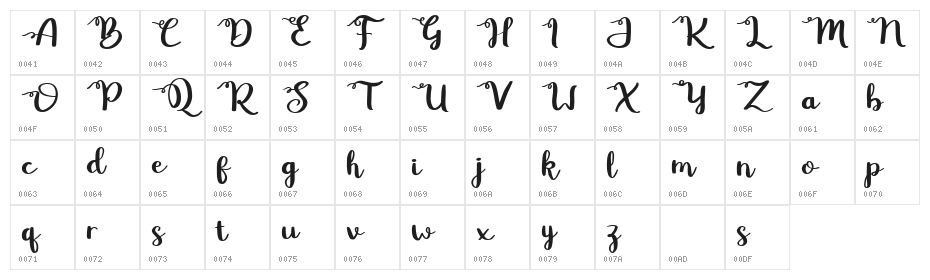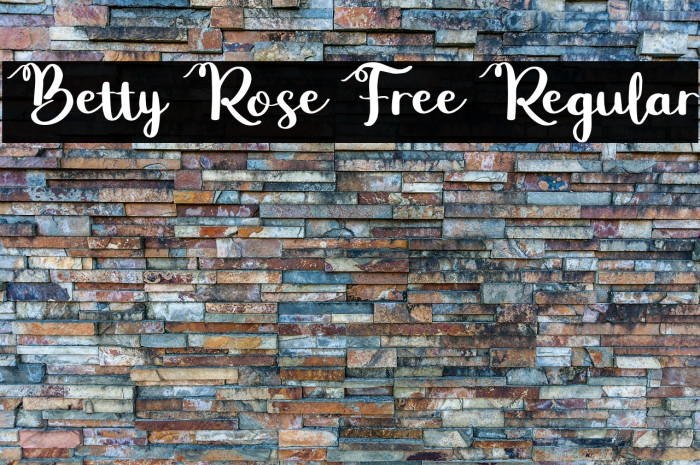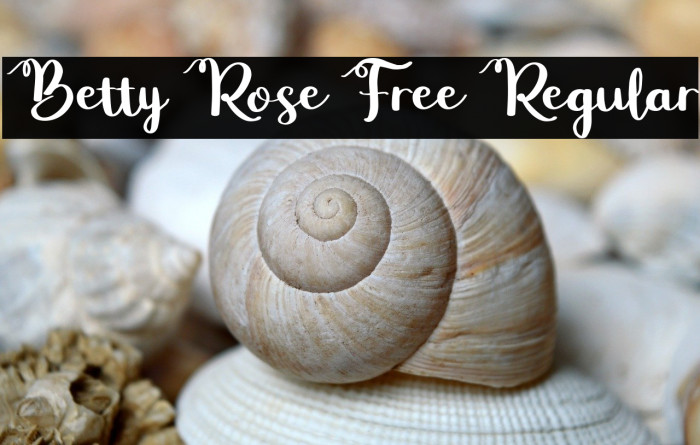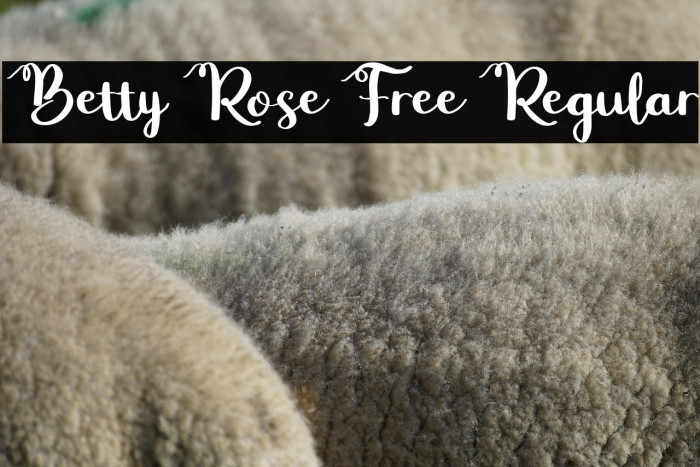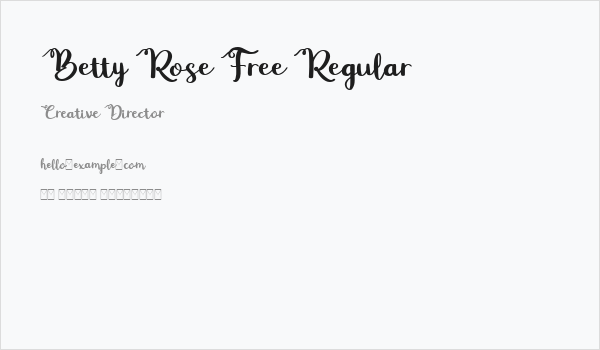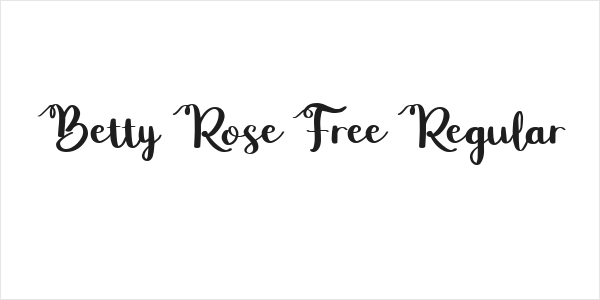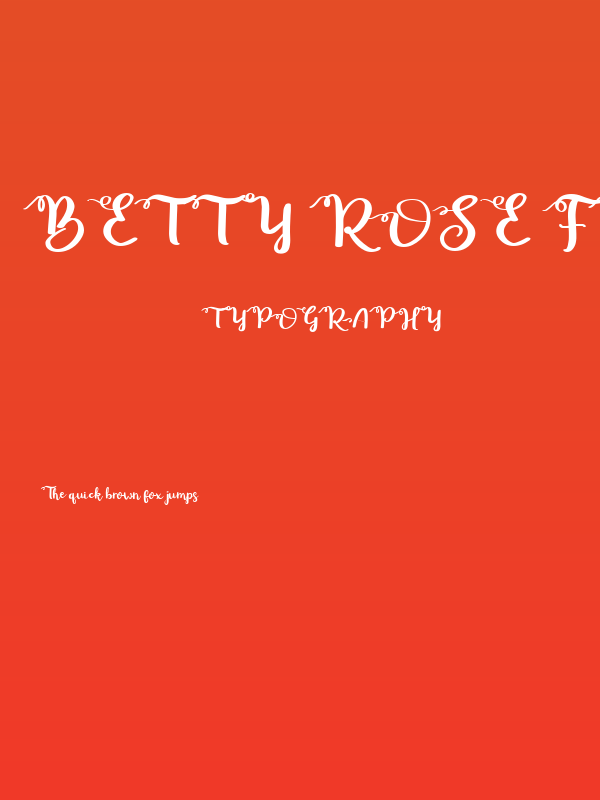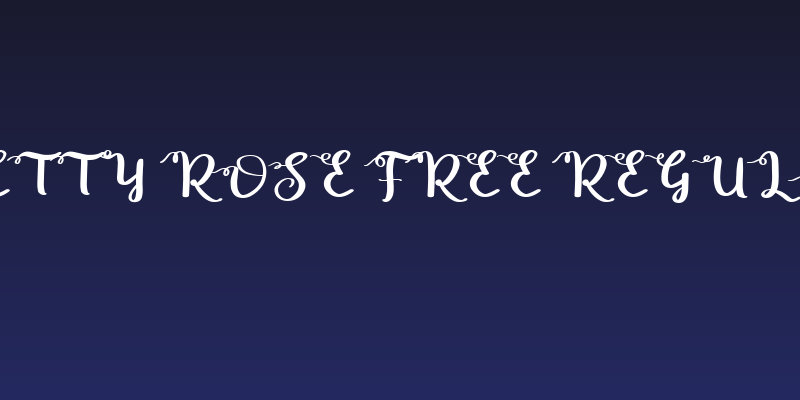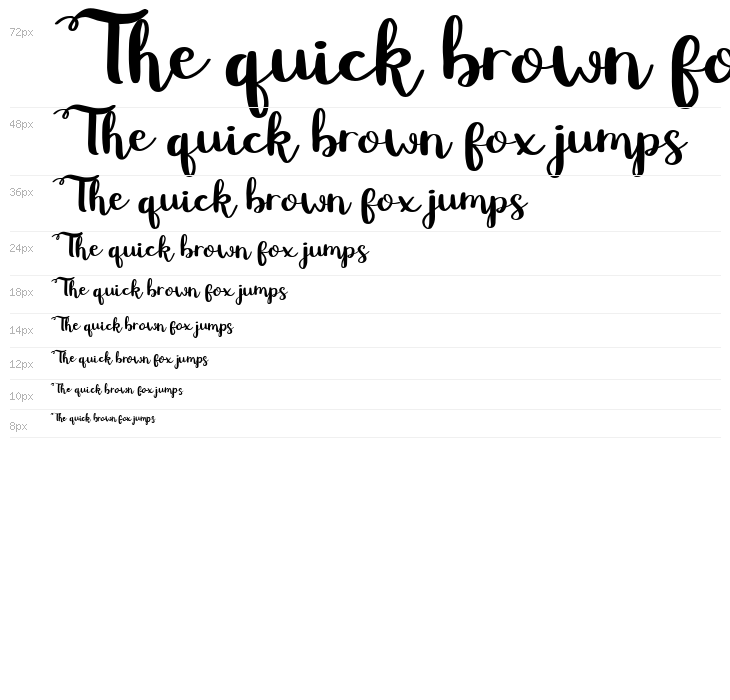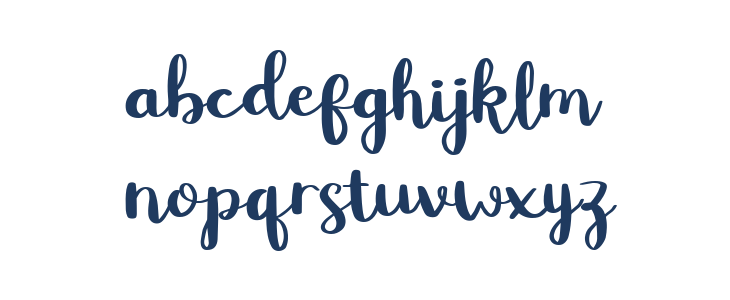
Betty Rose Free Regular Font
Betty Rose Free Regular Description
This font features a decorative and whimsical style with elegant flourishes and loops that give it a playful yet sophisticated appearance. The uppercase letters are adorned with intricate swirls, adding a touch of elegance and charm. The lowercase letters maintain a consistent flow, with smooth curves and a slightly bold presence that enhances readability. The font's overall design is both artistic and functional, making it suitable for a variety of creative projects. Its unique character and decorative elements make it stand out, while its readability ensures it remains practical for various uses.
| Proposed Projects | Ideal for wedding invitations, greeting cards, branding, and decorative signage. |